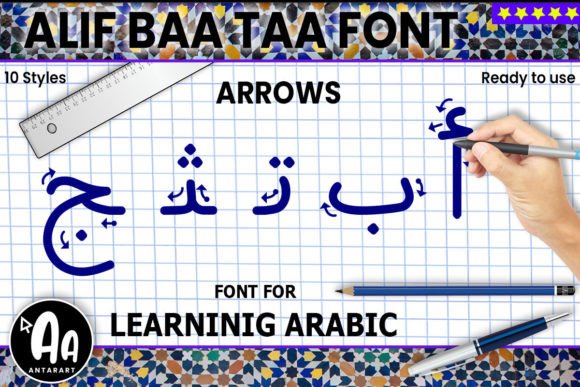
Journey into the world of Arabic calligraphy with Alif Baa Taa Arrows, a mesmerizing handwritten font designed to enchant and captivate. Immerse yourself in the beauty of the Arabic script, unlocking the richness and elegance of this ancient language.
Imagine the joy of your little ones as they embark on an educational adventure with Alif Baa Taa Arrows. With its playful arrows and whimsical design, this font transforms learning into an enthralling escapade. Whether they're tracing letters, writing their names, or crafting creative stories, Alif Baa Taa Arrows adds a touch of magic to every stroke.
As an educator, Alif Baa Taa Arrows is your secret weapon for creating engaging and interactive Arabic lessons. Effortlessly generate worksheets, flashcards, and presentations that capture your students' attention and make learning Arabic an unforgettable experience. Its versatility extends beyond the classroom, allowing you to design captivating posters, social media graphics, and invitations that leave a lasting impression.
For designers seeking a unique and expressive touch, Alif Baa Taa Arrows is your artistic muse. Its intricate swirls and elegant curves add a touch of sophistication to your projects, whether you're creating logos, brochures, or eye-catching headlines. Let your creativity soar as you explore the endless possibilities of this captivating font.
For those with a passion for Arabic culture and heritage, Alif Baa Taa Arrows is a treasure. Preserve the beauty and traditions of the Arabic language in your digital creations, honoring its rich history and ensuring its legacy for generations to come.